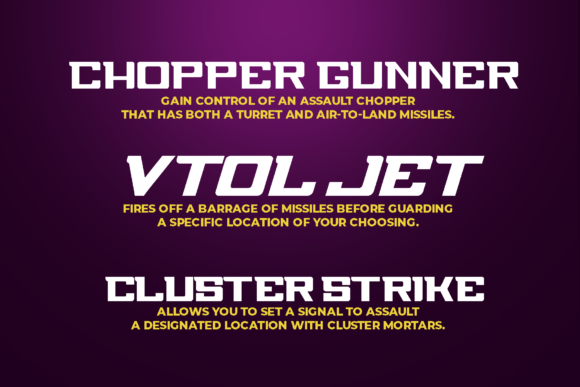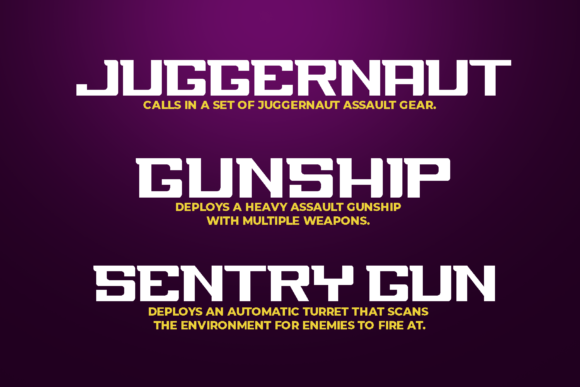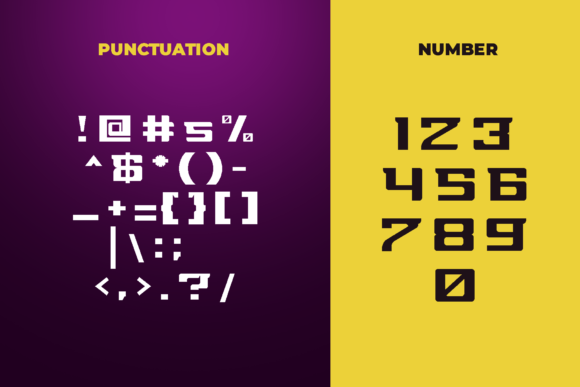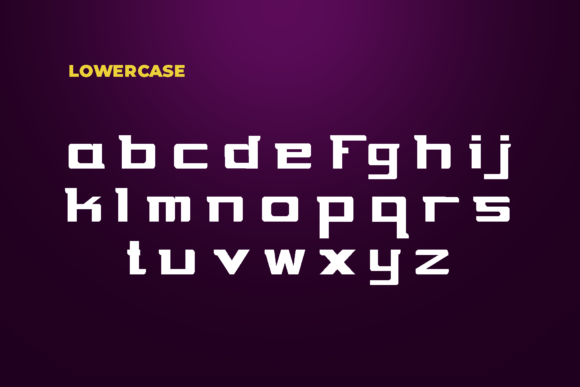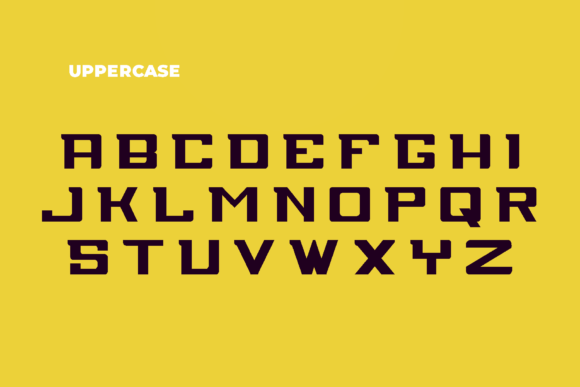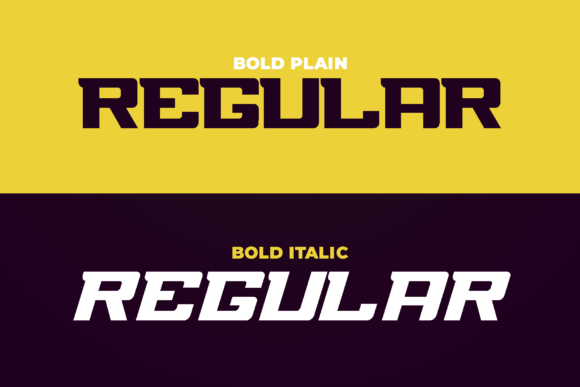
Introducing Chiller Font: The Ultimate Display Font for Modern Designs
Are you tired of using the same old fonts in your designs? Look no further than Chiller Font, a bold and dynamic display font that’s sure to take your designs to the next level. With its modern vibe and versatility, Chiller Font is the perfect choice for designers and crafters looking to create standout designs that capture attention.
What is Chiller Font?
Chiller Font is a display font designed to make a statement. Its bold and dynamic design makes it perfect for headlines, titles, and other display text. The font features a modern and edgy aesthetic that’s sure to add a touch of sophistication to any design.
Key Features of Chiller Font
- Bold and Dynamic Design: Chiller Font is designed to make a statement. Its bold and dynamic design makes it perfect for headlines, titles, and other display text.
- Modern Vibe: The font features a modern and edgy aesthetic that’s sure to add a touch of sophistication to any design.
- Versatile: Chiller Font is versatile and can be used in a variety of design projects, from posters and flyers to logos and branding.
- Easy to Read: Despite its bold design, Chiller Font is easy to read, making it perfect for use in a variety of design projects.
How to Use Chiller Font in Your Designs
Chiller Font is perfect for a variety of design projects, including:
- Posters and Flyers: Use Chiller Font to create eye-catching headlines and titles that grab attention.
- Logos and Branding: Use Chiller Font to create a bold and memorable logo that sets your brand apart.
- Social Media Graphics: Use Chiller Font to create social media graphics that stand out in a crowded feed.
- Packaging Design: Use Chiller Font to create eye-catching packaging that stands out on store shelves.
Benefits of Using Chiller Font
There are many benefits to using Chiller Font in your designs, including:
- Increased Visibility: Chiller Font is designed to grab attention and increase visibility.
- Improved Brand Recognition: Use Chiller Font to create a bold and memorable logo that sets your brand apart.
- Enhanced Creativity: Chiller Font is versatile and can be used in a variety of design projects, allowing you to experiment and try new things.
Tips for Getting the Most Out of Chiller Font
Here are a few tips for getting the most out of Chiller Font:
- Use it Boldly: Chiller Font is designed to make a statement, so don’t be afraid to use it boldly.
- Experiment with Colors: Chiller Font looks great in a variety of colors, so experiment to find the perfect combination for your design.
- Pair it with Other Fonts: Chiller Font pairs well with a variety of other fonts, so don’t be afraid to experiment and find the perfect combination.